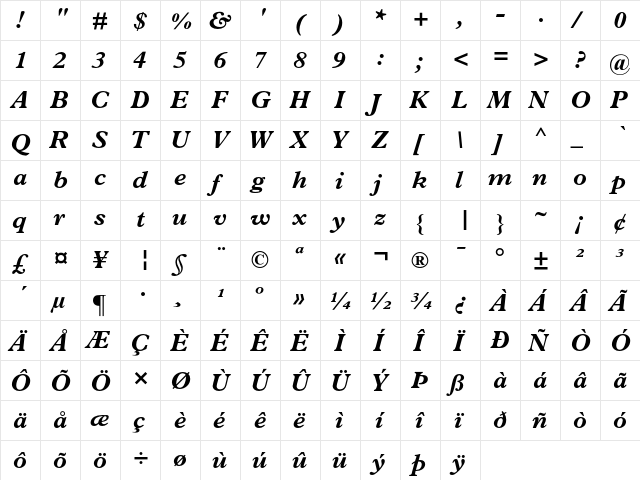
Plantin Bold Italic
Design Context for Plantin Typeface
Plantin takes a measured approach to typography — its balanced proportions and neutral character make it a reliable workhorse for both digital and print work. The dynamic lean of this cut emphasises speed and emphasis in any layout. Its bold stroke weight gives it real presence on the page.
Pro Tip: Use Plantin for emphasis, pull quotes, and subheadings where its slanted energy can add rhythm to the layout.